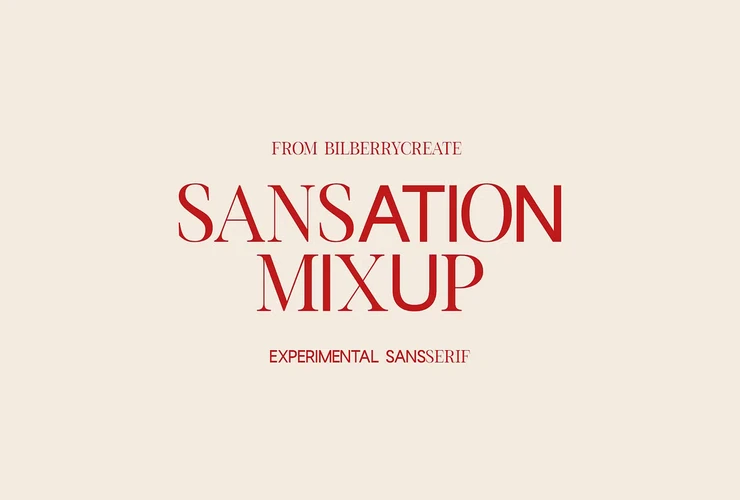
Unleash Creativity with Sensation Mixup Experimental Font
Sensation Mixup Experimental Font by Bilberry Creates is a dynamic and versatile typeface designed to bring a unique and creative touch to any project. This font stands out for its unconventional design, making it the perfect choice for those looking to add a bold, artistic flair to their work.
What Makes Sensation Mixup Experimental Font Special?
Sensation Mixup Experimental Font is not just another typeface; it’s a tool for limitless creativity. Its experimental nature makes it ideal for a wide range of applications, from logos and invitations to home decor and fabric prints. The font’s design is a blend of modern and quirky elements, offering a fresh and exciting way to express ideas visually.
Here’s why Sensation Mixup should be your next go-to font:
Versatile Applications: Whether you’re designing logos, wedding cards, birthday invitations, or home decor items, Sensation Mixup provides the flexibility to create visually striking and memorable designs.
Multilingual Support: This font includes a comprehensive set of multilingual characters, allowing you to craft messages in various languages without losing the font’s distinctive style.
Perfect for Print and Digital: Sensation Mixup works beautifully across different mediums, whether you’re printing on fabric, creating digital graphics, or designing packaging. Its bold and playful design ensures your project will stand out.
A Full Set of Multilingual Characters: Covering a wide range of accents and special characters, Sensation Mixup ensures that your designs are not limited by language barriers.
Endless Creative Possibilities: From scrapbooking and party decorations to fabric printing and beyond, this font opens up a world of creative opportunities.
Explore the Sensation Mixup Experimental Font to elevate your design projects with a touch of experimental flair.